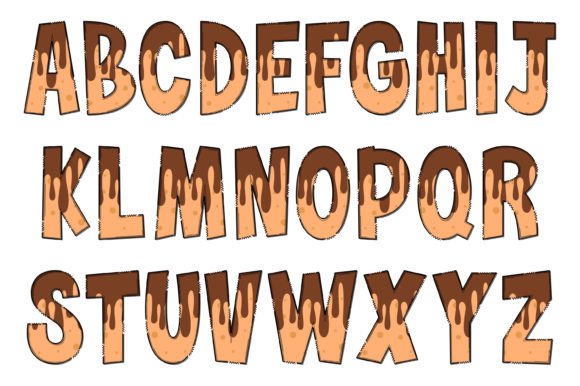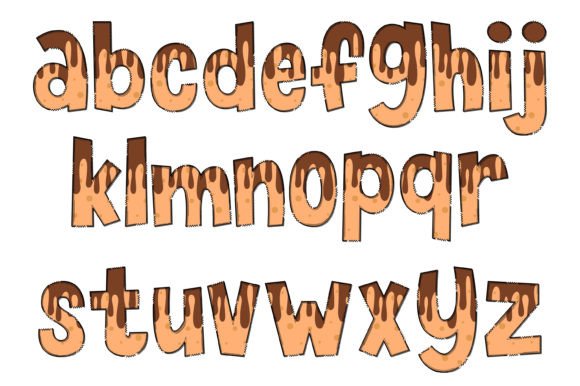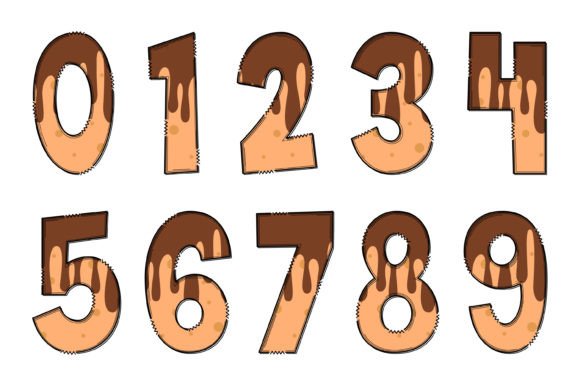
Brownie Cake Font: A Deliciously Creative Choice for Designers and Crafters
Are you looking for a font that can add a pinch of fun and a dash of excitement to your designs? Look no further than the Brownie Cake Font, a delightful and captivating color font with a dessert theme that’s sure to bring the joy and deliciousness of desserts to your projects.
This vibrant and playful font is perfect for designers and crafters who want to create mouthwatering experiences for their viewers. With its colorful details and whimsical charm, the Brownie Cake Font is sure to make your designs stand out from the crowd.
A Perfect Choice for a Variety of Applications
The Brownie Cake Font is a versatile and adaptable choice that can be used in a variety of applications, including:
- Branding materials: Add a touch of fun and whimsy to your brand’s identity with this delightful font.
- Party invitations: Create eye-catching and engaging invitations that will set the tone for a sweet celebration.
- Menu designs: Make your menu designs pop with this colorful and appetizing font.
- Social media graphics: Add a dash of excitement to your social media posts and stories with this vibrant font.
Why Choose the Brownie Cake Font?
So why choose the Brownie Cake Font for your next project? Here are just a few reasons:
- Unique and eye-catching: This font is sure to grab attention and make your designs stand out.
- Versatile: The Brownie Cake Font can be used in a variety of applications, from branding materials to social media graphics.
Tips and Tricks for Using the Brownie Cake Font
Here are a few tips and tricks to keep in mind when using the Brownie Cake Font:
- Experiment with colors: One of the best things about the Brownie Cake Font is its colorful details. Don’t be afraid to experiment with different colors and combinations to find the perfect look for your project.
- Mix and match: Try pairing the Brownie Cake Font with other fonts or design elements to create a unique and eye-catching look.
- Have fun: The most important thing to remember when using the Brownie Cake Font is to have fun! This font is all about bringing a touch of whimsy and excitement to your designs, so don’t be afraid to get creative and try new things.
In conclusion, the Brownie Cake Font is a deliciously creative choice for designers and crafters who want to add a touch of fun and excitement to their projects. With its vibrant colors, playful details, and versatility, this font is sure to make your designs stand out from the crowd.